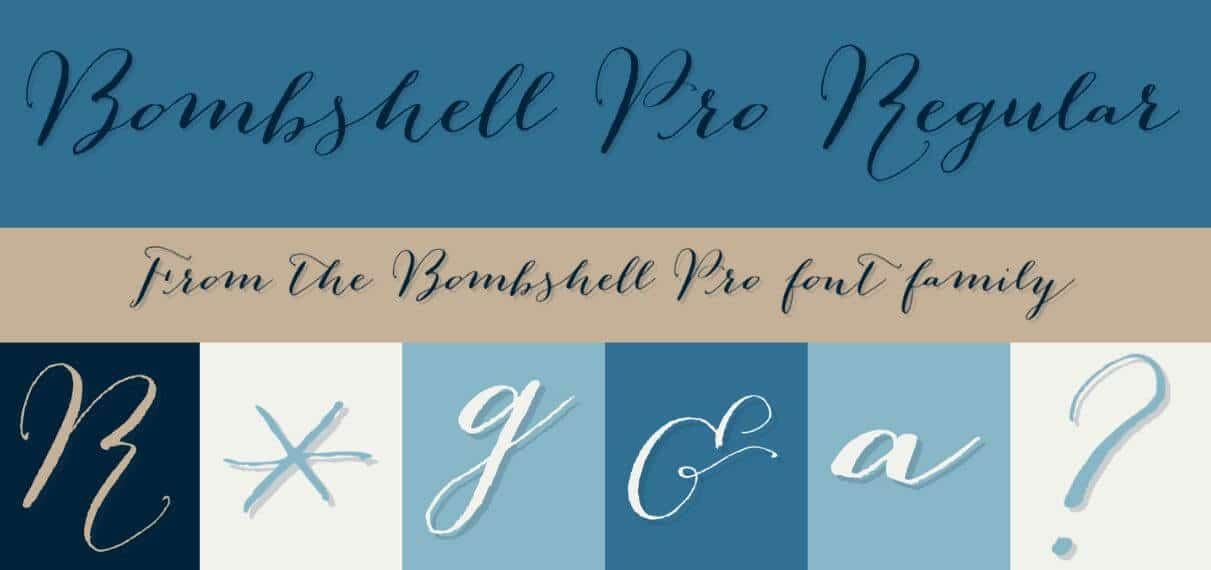
Bombshell Font
Bombshell font looks like koowalsky font state-of-the-art-feeling x-top for both legibility and pleasant appeal, while its more than one weights ensure the highest versatility.
It is perfect for primary font pairing approaches. Then it becomes best for you. We fasten the letter maps asterism pix right here from which that you just might get a piece of correct advice.
Style Of Bombshell Font